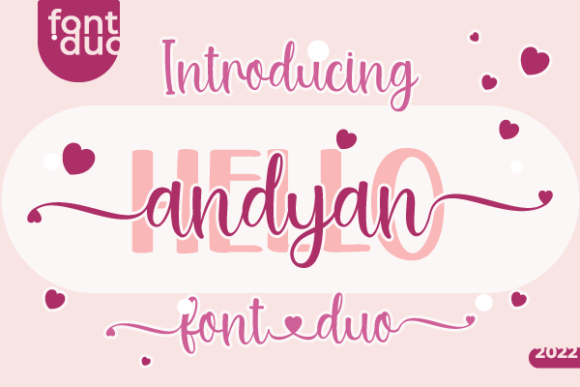
Introducing the Hello Andyan Duo Font, a mesmerizing collection designed to elevate your creative projects to new heights! Crafted with love by fiqiart, this captivating duo combines a script and sans serif font, creating an irresistible blend that is perfect for any occasion.
Whether you're searching for the ideal font to adorn your wedding signs or seeking to add a touch of elegance to your crafts, Hello Andyan is the answer. Its graceful script font exudes charm and sophistication, while the sans serif font adds a modern twist, making this collection truly versatile.
Hello Andyan is more than just a font; it's a gateway to unlimited creativity. With its PUA encoding, accessing all the beautiful glyphs and ligatures is a breeze. Let your imagination run wild as you effortlessly incorporate these intricate details into your designs, creating one-of-a-kind masterpieces.
Bring your wedding signage to life with Hello Andyan's exquisite script font. Its flowing curves and delicate strokes will evoke a sense of romance and enchantment, setting the perfect tone for your special day. Your guests won't be able to take their eyes off your beautifully crafted signs, making your wedding an event to remember.
But Hello Andyan doesn't stop there. Its sans serif font adds a contemporary touch to any project, whether it's designing invitations, creating stunning logos, or crafting captivating social media posts. With this font, you can effortlessly convey a sense of modernity and style, leaving a lasting impression on your audience.
Unleash your creativity and let Hello Andyan become your trusted companion on your artistic journey. Its exquisite design and attention to detail will captivate both you and your audience, making every project a true work of art.